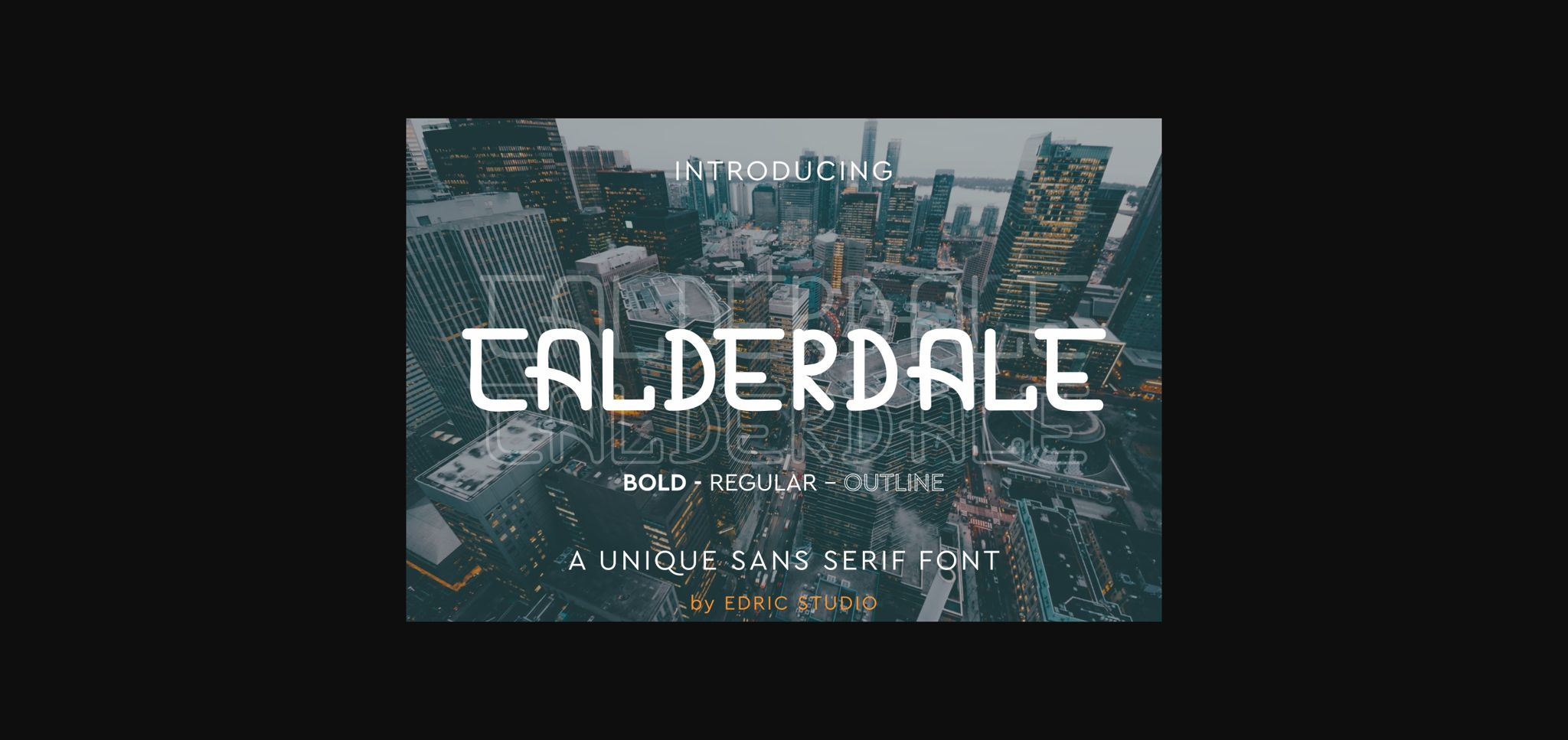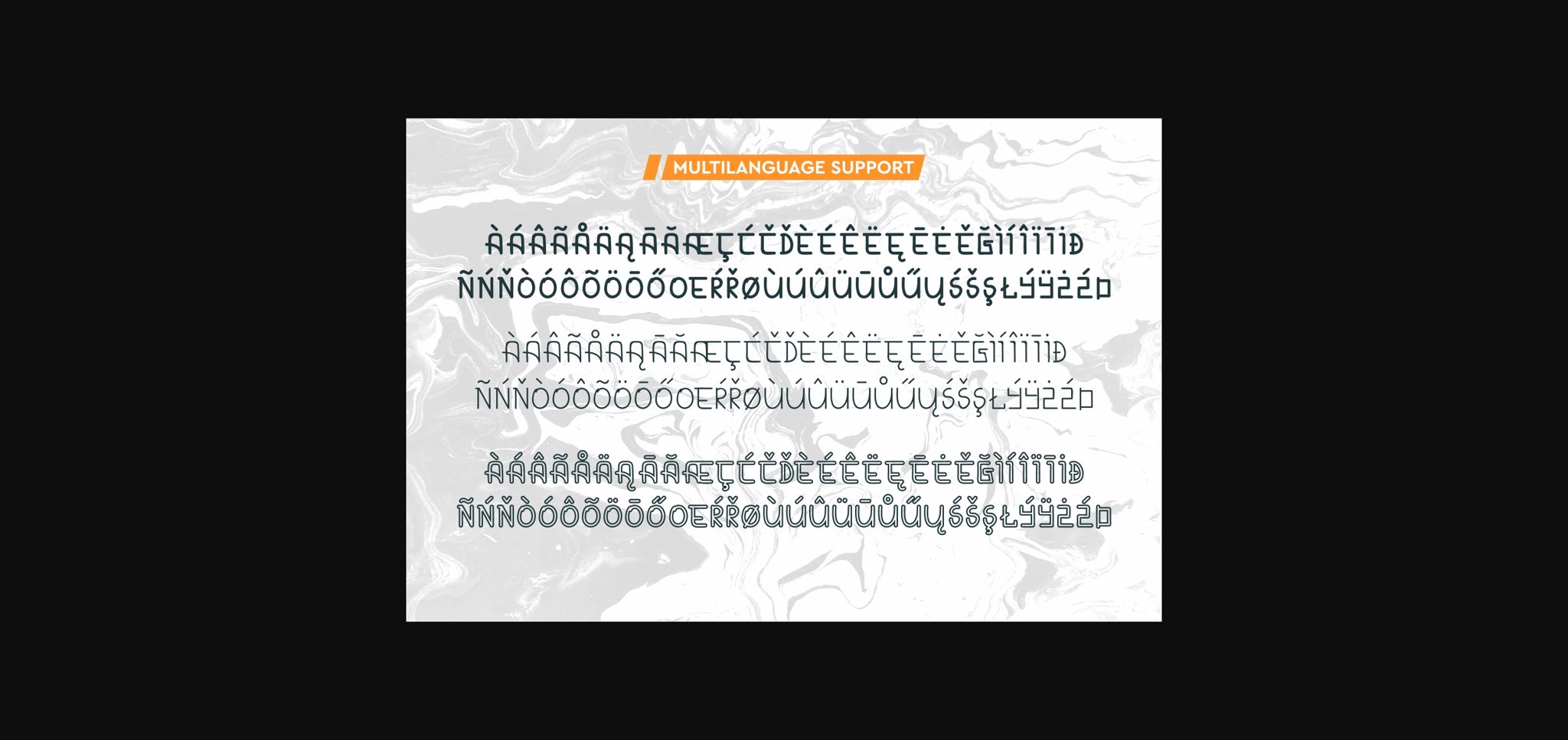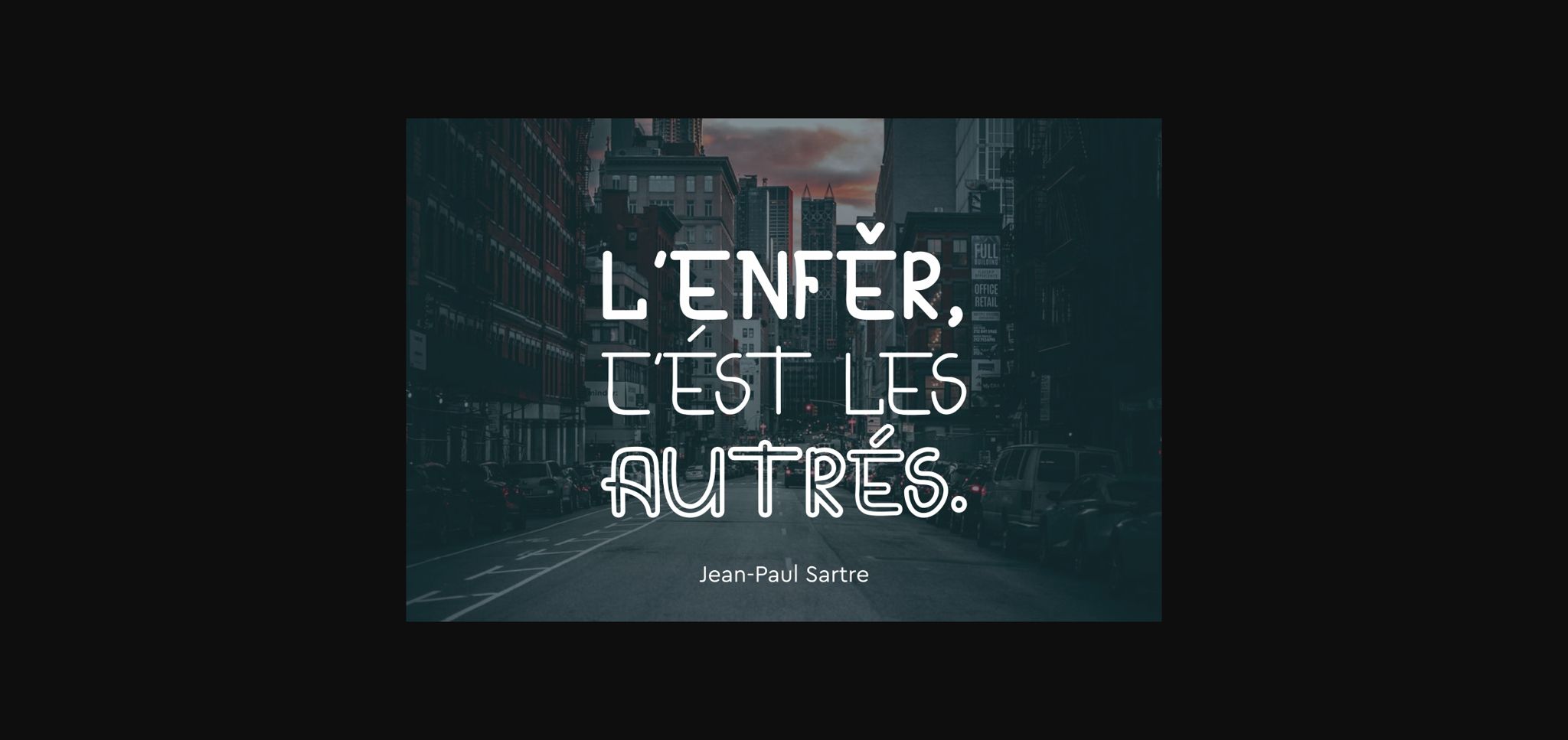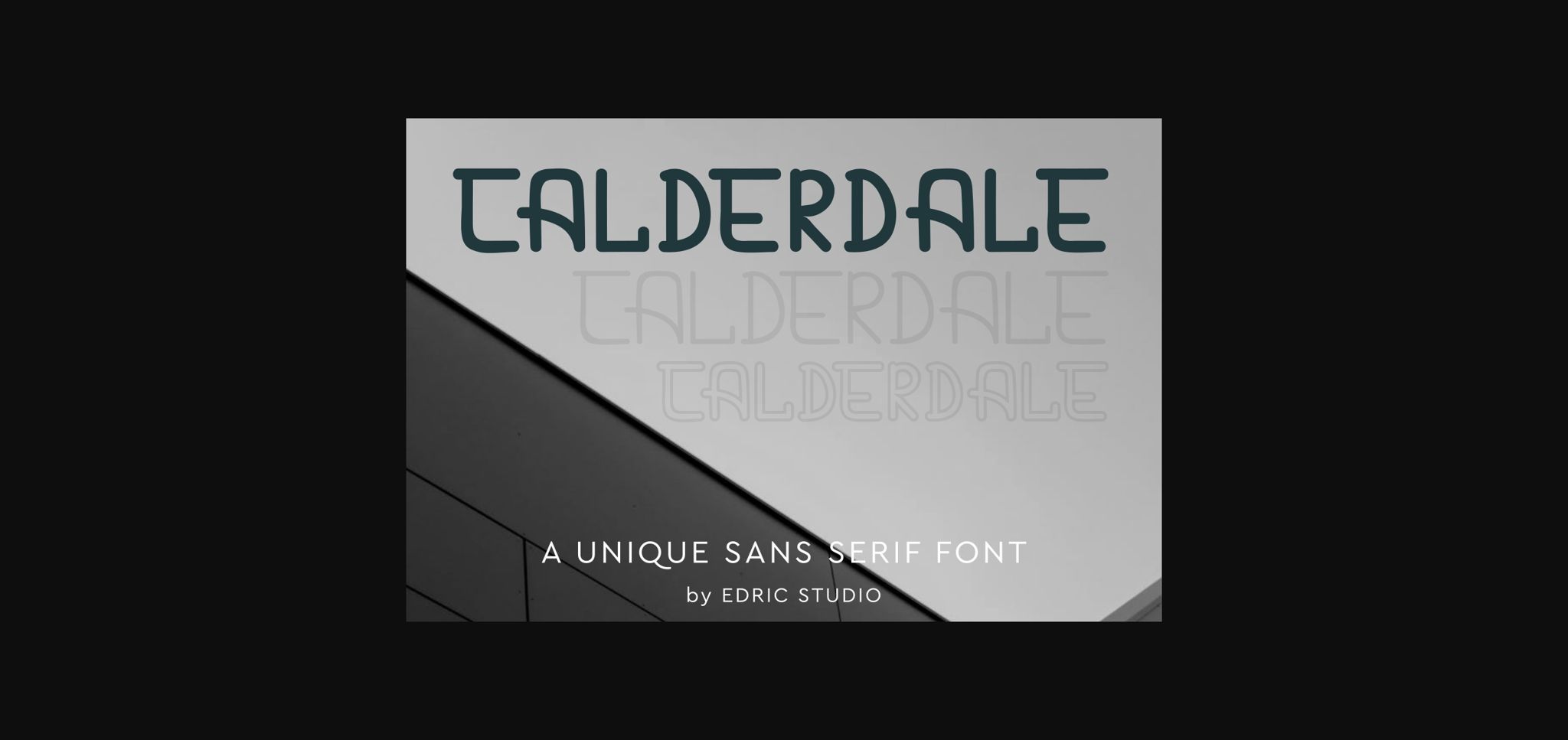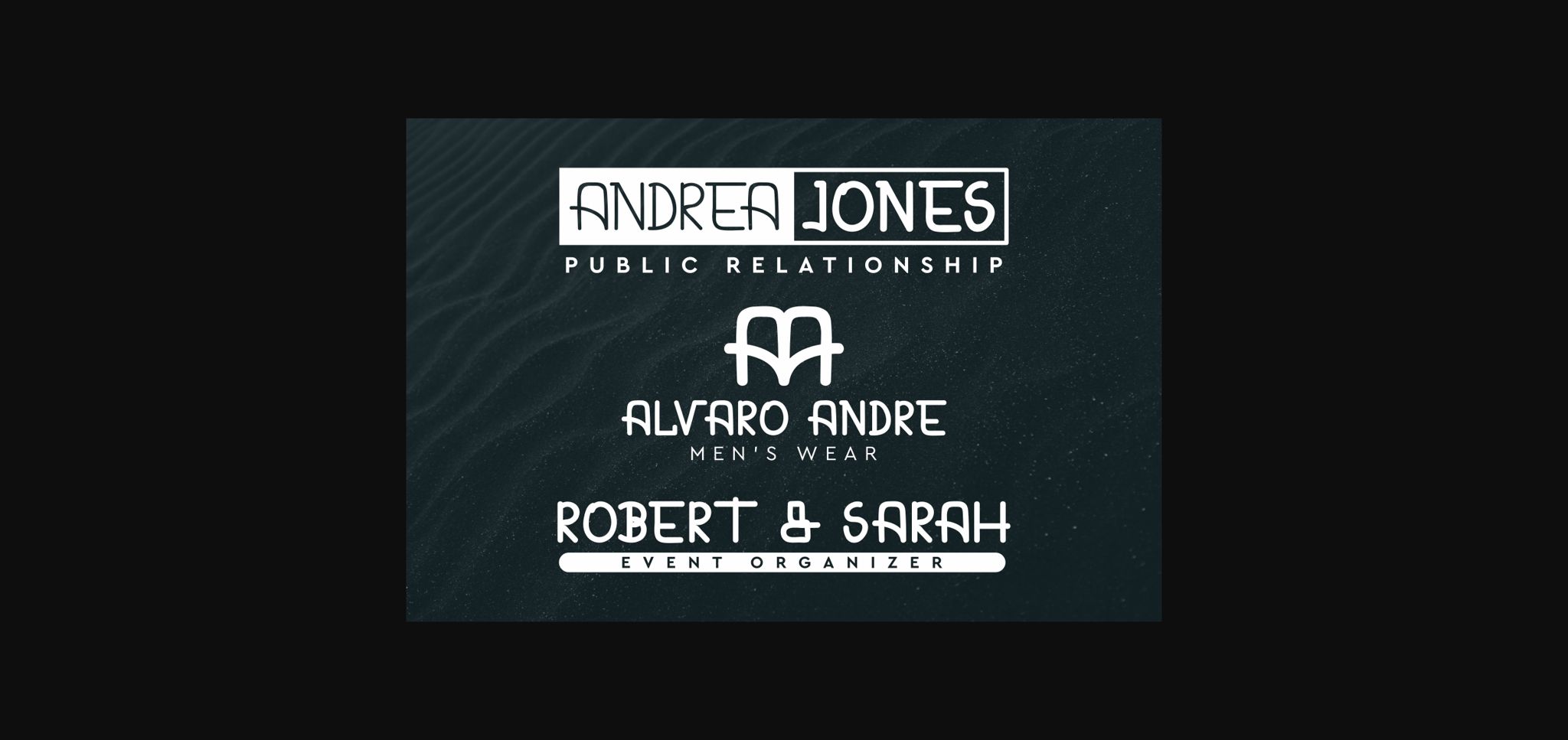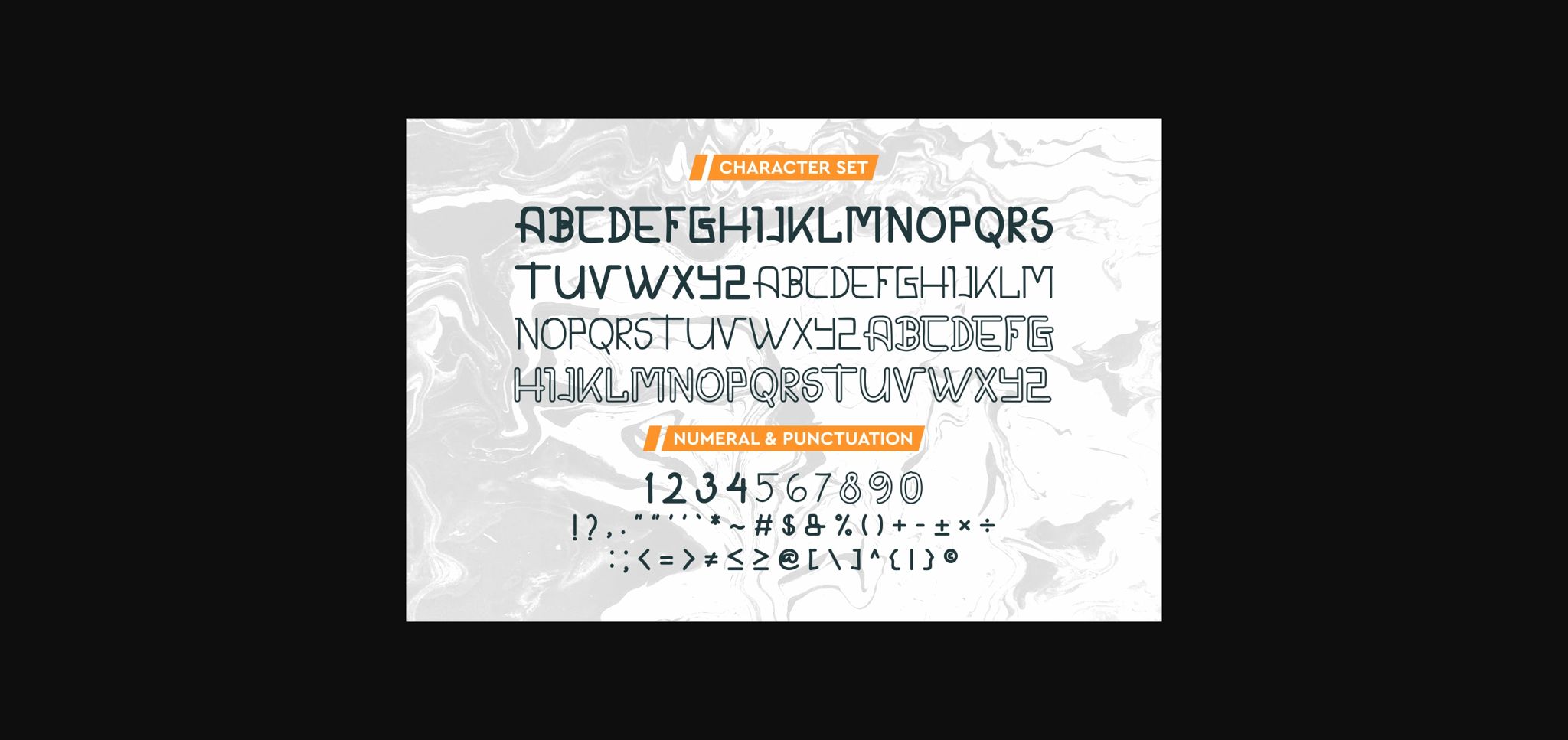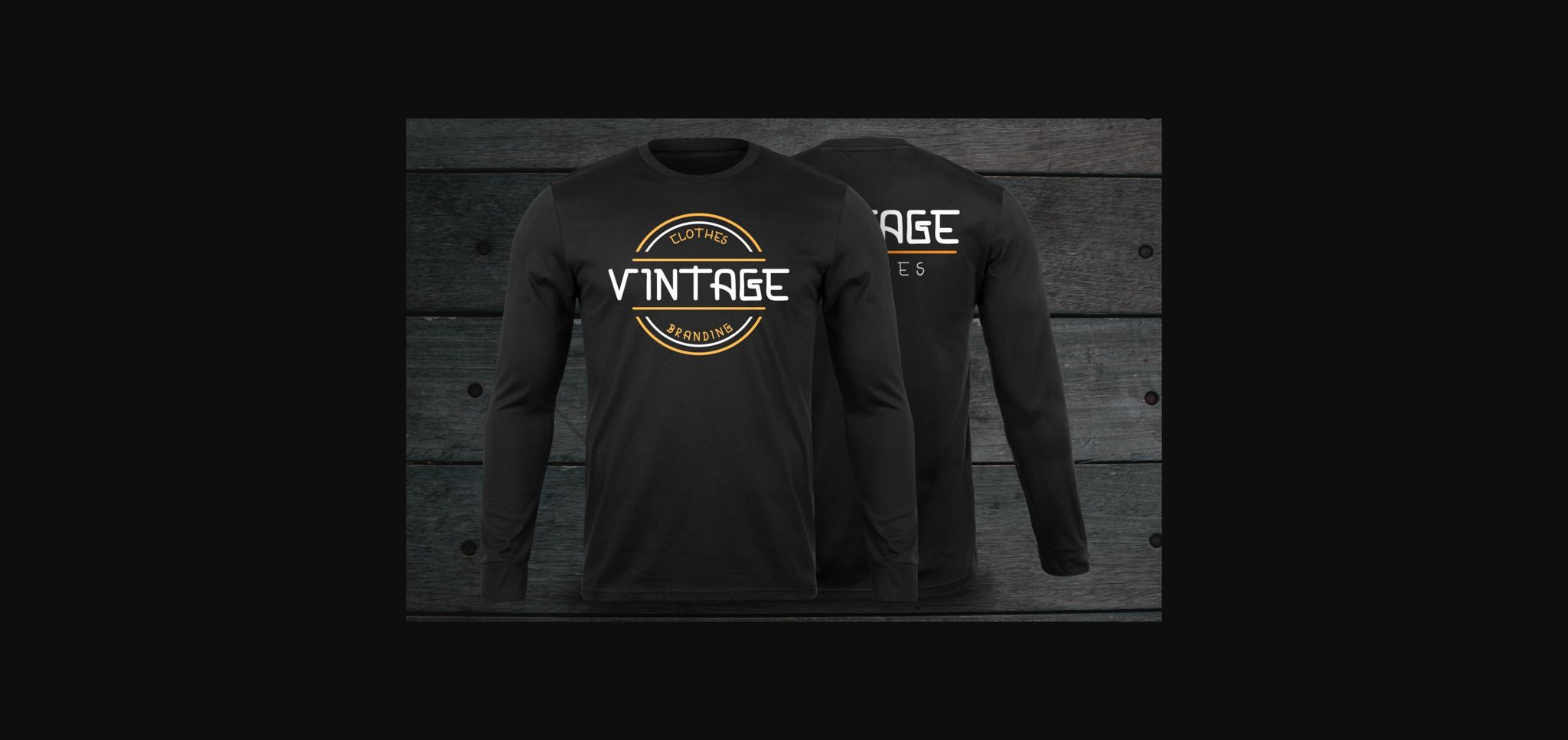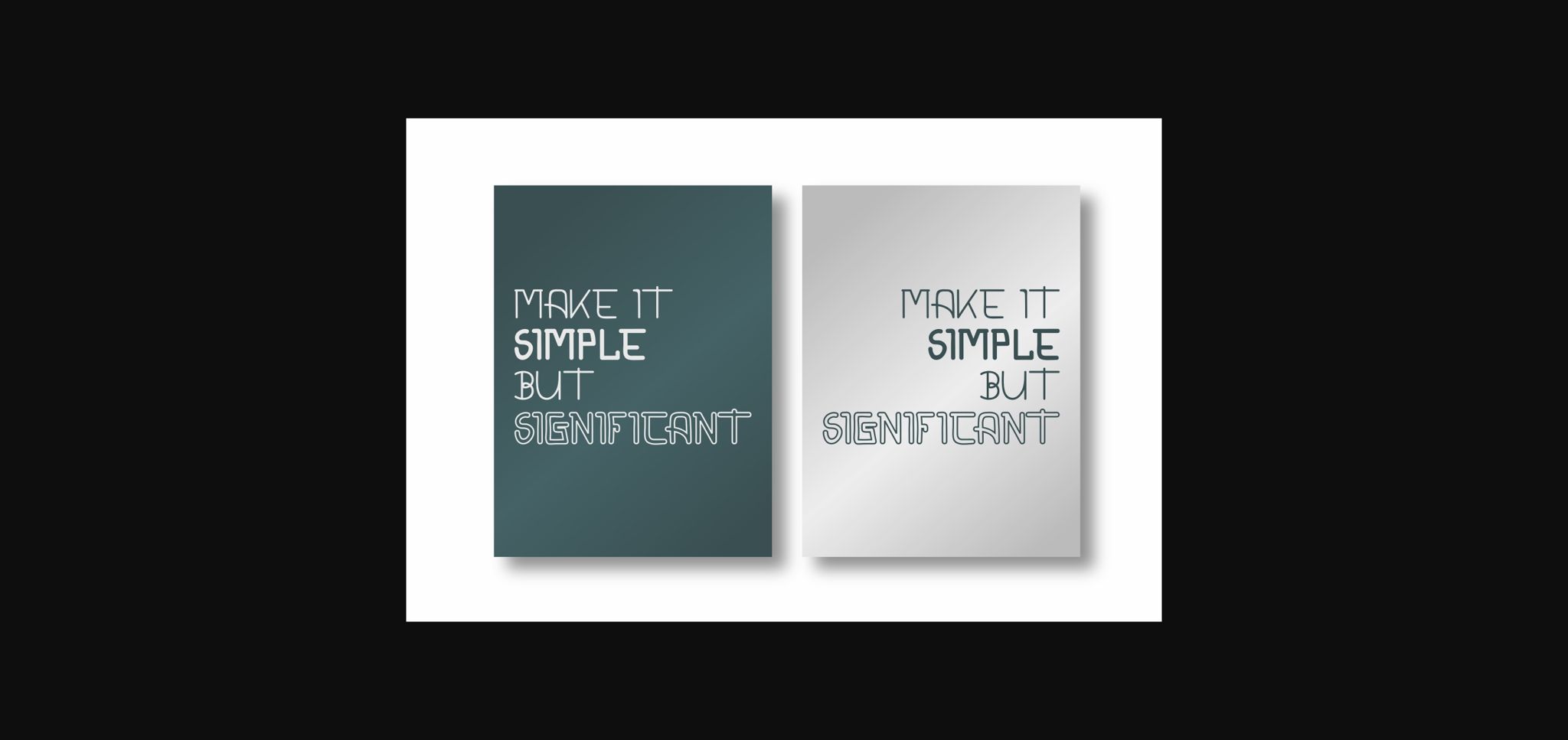
Calderdale Font
About Calderdale Font
Calderdale is a unique sans serif display family font that comes with modern and stylish glyphs. Will be great for a wide variety of projects!